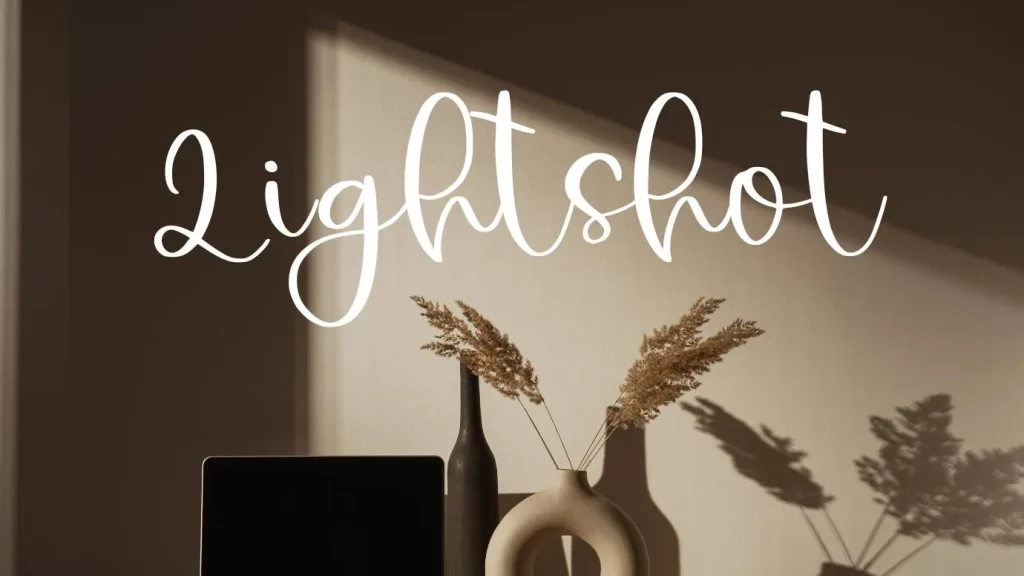
Lightshot Font is a calligraphy typeface that has an appealing and tidy textural aspect. This typeface may therefore be utilized in a variety of layouts and tasks. You may use its online generating tool to turn plain text into a contemporary design. You may obtain it in the OTF and TT archive data types depending on your computer.
The typeface can suit your demands if you want anything classy and eye-catching. Now that you have this font, you can start making stunning and original layouts. To achieve an exclusive and eye-catching design, it is essential to pair this font with the olivia font.
This writing style is suitable for video games, visual editing, and logo designs, among other things. This type of text style may be used to conduct an attractive, in-depth analysis of your content and strategy. Text style is used by visual developers because of its attractive design.
This text style is appropriate for logo designs and movie titles. Additionally, it is helpful for game planning. Additionally, you can use this text style to create, banners, gift cards, and covers for digital books.
For website designing, blogging, and many other related purposes, this stunning text-based style is ideal. Countless designers use this design for their professional and personal projects. The above typography is ideal for activities, invitations, publications, and corporate substance.
Lightshot Font
Whether you are working on a branding project or a website, this font will suit your needs. If you’re looking for a typeface to use for branding projects, you’ll love this typeface.
Your projects will be able to benefit from it. This style is ideal for any design that needs a bit of versatility. This typeface has sophisticated glyphs and signs. It can be used for animations and other projects.
A design can be used to create interesting covers, shop names, logos, and websites. As well as branding projects, houseware designs, and packaging.